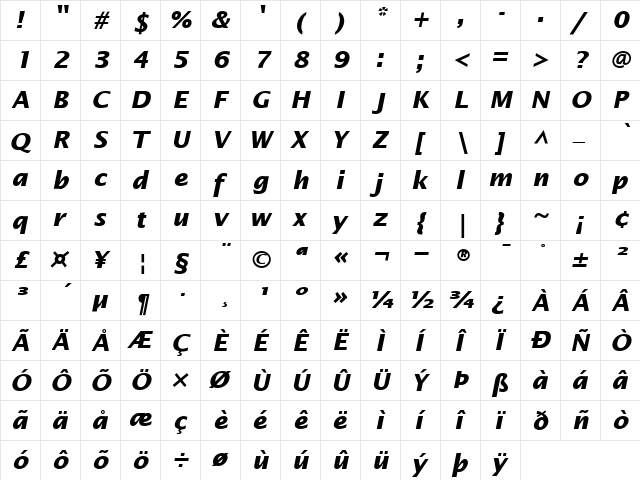
LucidaSans BoldItalic
Design Context for LucidaSans Typeface
LucidaSans takes a measured approach to typography — its balanced proportions and neutral character make it a reliable workhorse for both digital and print work. The dynamic lean of this cut emphasises speed and emphasis in any layout. The heavy weight commands attention and anchors typographic hierarchies.
Pro Tip: Use LucidaSans for emphasis, pull quotes, and subheadings where its slanted energy can add rhythm to the layout.